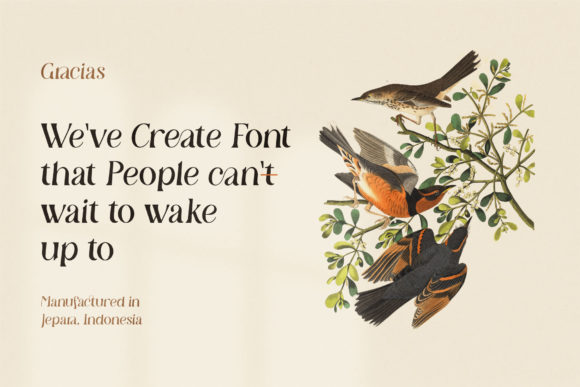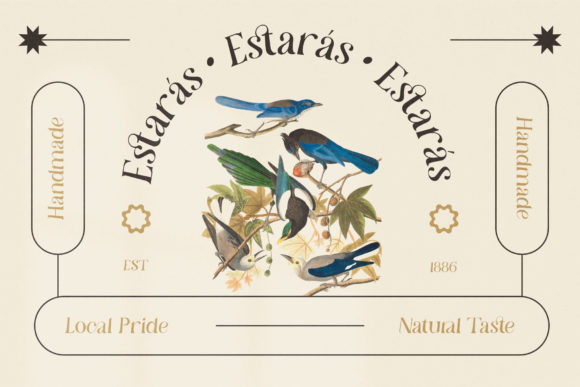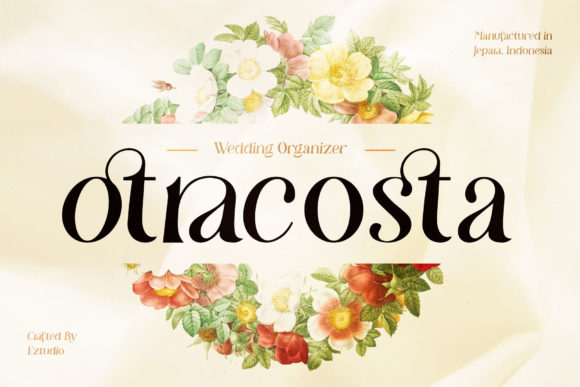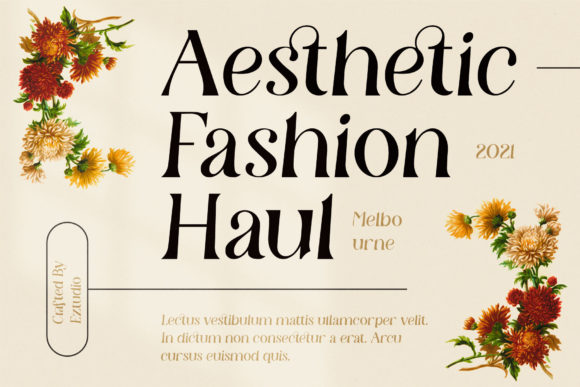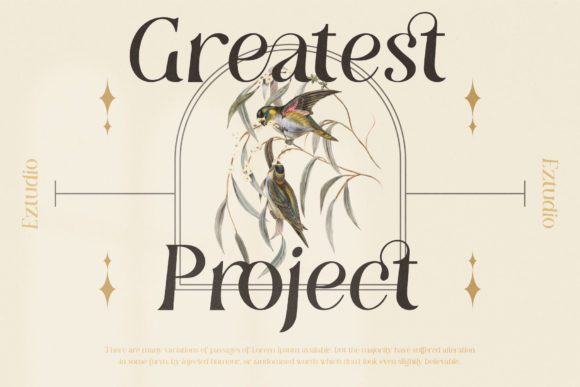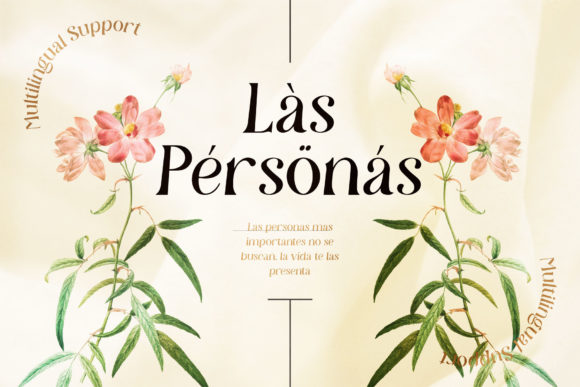
Introduction to Granchy Font
Granchy is a modern and aesthetic serif font.
It looks beautiful on a variety of designs requiring a personalized style, such as wedding invitations, thank you cards, weddings, greeting cards, logos and so on .
Granchy Font offers exceptional quality and versatility, making it a valuable addition to your design toolkit. Whether you’re creating for personal projects or commercial use, Granchy Font delivers professional results.